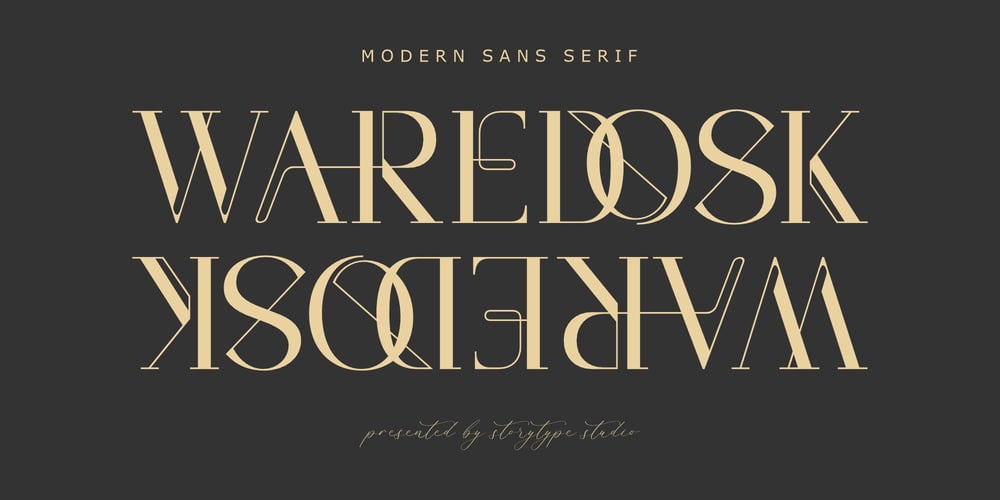
Waredosk Font Family was designed by Heru Utama Putra and published by Letterena Studios. Waredosk contains 2 styles and family package options. Waredosk is a sophisticated, charming serif font with a fashionable touch. Specially designed for luxury, elegant, feminine projects, this font is perfectly suitable for creating modern, chic designs.